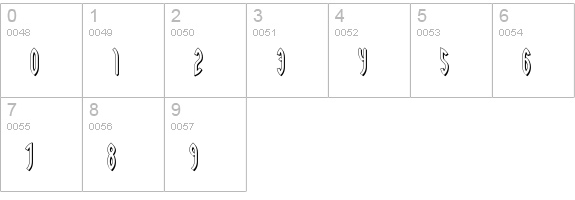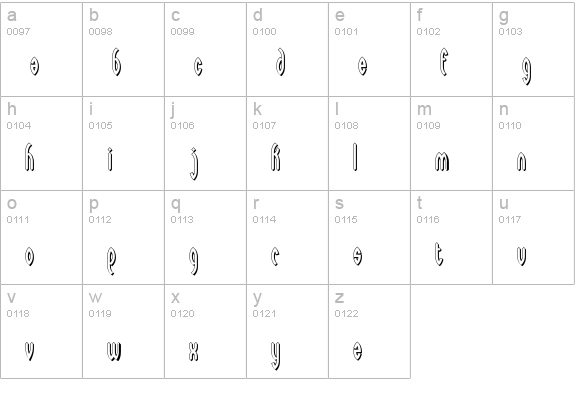
Wayward Shadow BRK Font Details
Wayward Shadow BRK font is a bold and distinctive typeface that exudes a sense of mystery and intrigue. With its unique design featuring shadow effects, this font adds a touch of drama to any project, making it perfect for titles, headlines, and branding. The sharp edges and dynamic curves of the letters give a modern and edgy feel, while the shadow detail adds depth and dimension. This versatile font is suitable for a wide range of design applications, from posters and packaging to logos and websites. Whether you're looking to make a statement or add a touch of sophistication to your designs, Wayward Shadow BRK font is sure to impress. Best of all, Wayward Shadow BRK font is available for free download at FontsMarket.com. So, go ahead and give your projects a bold and captivating look with this stunning typeface.